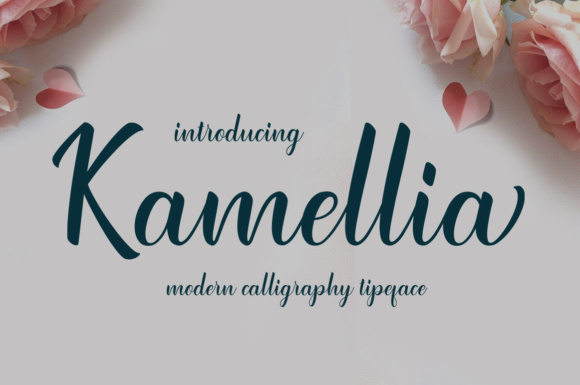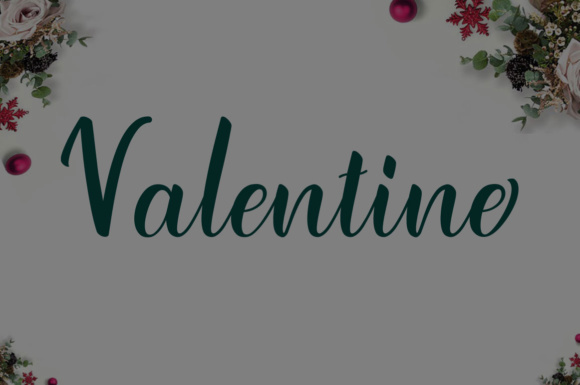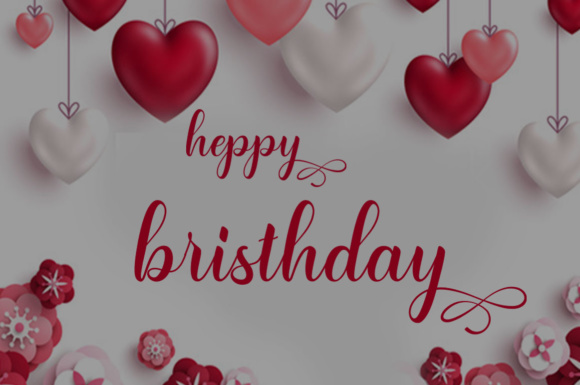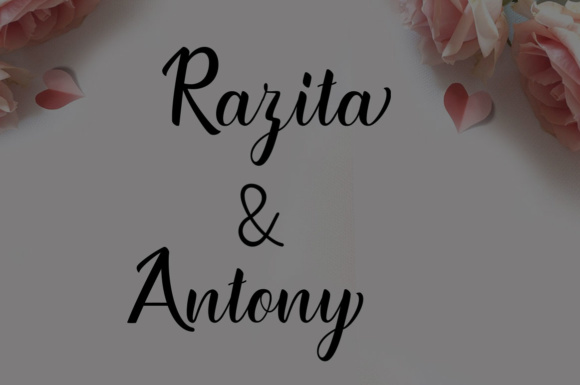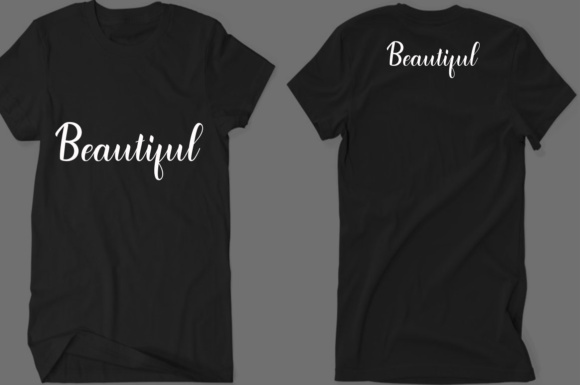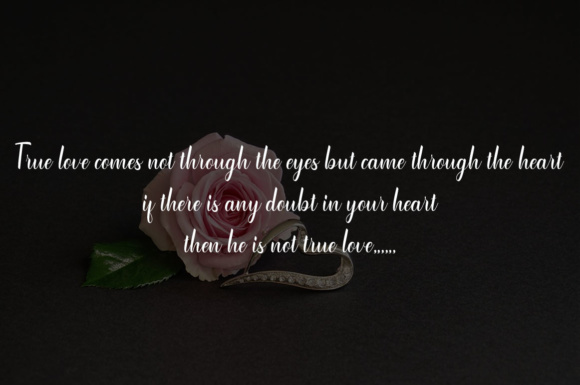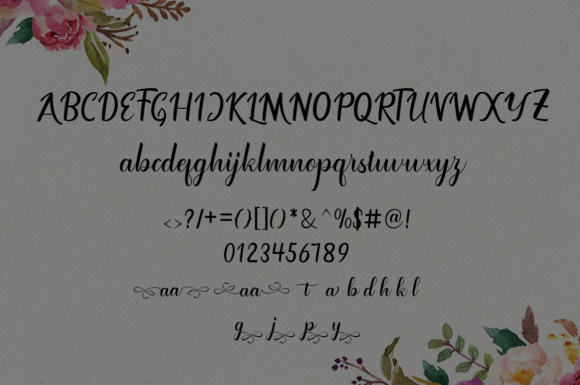
Kamellia Font
About Kamellia Font
Kamellia is a modern, elegant typeface. It was handwritten with a natural writing style and has unique forms of calligraphy. Perfect for modern designs!